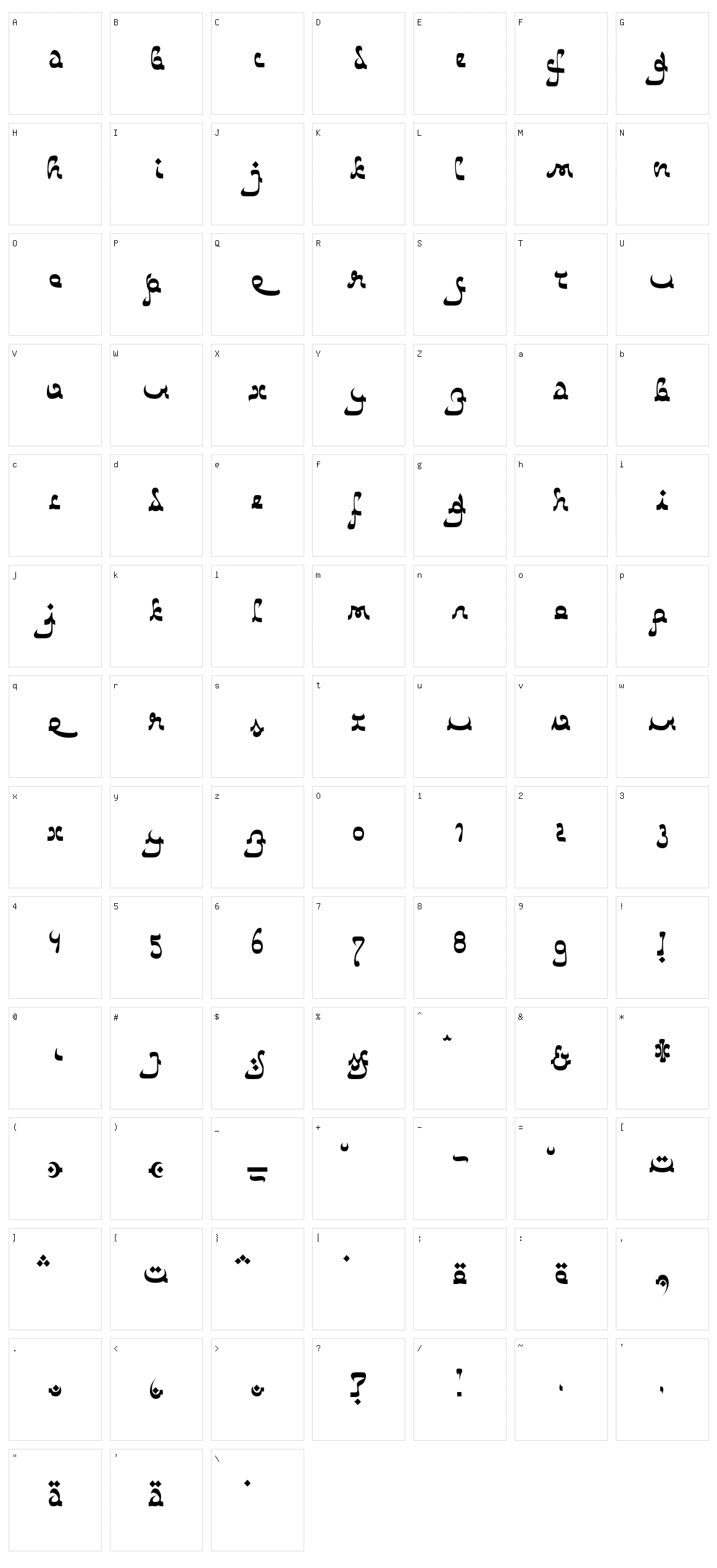
Catharsis Bedouin
This particular font is more complex to use than my usual ones.
Every letter has an initial, medial and final form so as to allow
fluent words with nice beginnings and ends. Some letters have even
more forms for special situations. Finally, there are a bunch of
accents and word primers/terminators for decoration.
IF YOU WANT TO KEEP IT SIMPLE, you can restrict yourself to
initial (uppercase) and medial (lowercase) letters, using the
handy terminators (on the grave accent key, ie the grave accent
and ASCII tilde characters) to cap off any trailing connecting
base line. This should be easy enough to do even on a PC.
Special characters inventory
****************************
Bedouin Character Mac Keyboard Correspondent Character
=================================================================
Bound exclamation mark S 1 !
Free exclamation mark A 1 inverse !
Bound question mark S / ?
Free question mark A / divide
Bound comma (f) , ,
Bound period (f) . .
Bound comma (i) S , <
Bound period (i) S . >
Bound inv. period (i) A , less or equal
Bound inv. period (f) A . greater or equal
Free comma S A , macron
Free period S A . breve
Free colon S A ; U acute
Bound apostrophe / /
Bound space A <space> non-breaking space
S A / inverse ?
Free hyphen - -
Bound hyphen A - endash
Bound underscore S - underscore
Bound ornament S A - emdash
Slash S A 1 fraction
Asterisk S 8 *
Terminator (i) ` `
Terminator (f) S ` ascii tilde
Crescent (i) S 9 (
Crescent (f) S 0 )
Scimitar (i) A 9 ord. feminine
Scimitar (f) A 0 ord. masculine
Inv. scimitar (i) S A 9 period centered
Inv. scimitar (f) S A 0 single quote base
Apostrophe (i) A 7 paragraph
S A q OE ligature
Apostrophe (f) S A 7 double dagger
S A a A ring
Dot accent, e-sized \ \
Dot accent, a-sized S \ bar
Dot accent, u-sized A \ guillemet left
Dot accent, sub S A \ guillemet right
Triple accent, e-sized ] ]
Triple accent, a-sized S ] brace right
Triple accent, u-sized A ] quote left
Triple accent, sub S A ] quote right
Breve accent, e-sized = =
Breve accent, a-sized S = +
Breve accent, u-sized A = not equal
Breve accent, sub S A = plus/minus
Crown accent, e-sized S A 6 fl ligature
Crown accent, a-sized S 6 ASCII circumflex
Crown accent, u-sized A 6 section
Candle accent, u-sized S A 5 fl ligature
Long s (m) S A s I acute
Ss ligature (m) S 5 %
Ss ligature (f) A 5 infinity
Tt ligature (m) S A t caron
F ligature (m) S A f I dieresis
L ligature (m) S A l O grave
C cedille (m) A 4 cent
C cedille (i) S A 4 single guillemet right
Solitary a S A ' AE ligature
Solitary i S A [ double quote right
Solitary o A 8 bullet
Solitary u S A 8 degree
Dotless i (i) S 2 @
Dotless i (m) S A 2 currency
Dotless i (f) A 2 trademark
Dotless j (i) S 3 #
Dotless j (m) S A 3 single guillemet left
Dotless j (f) A 3 sterling
Triple dot M (m) S A m A circumflex